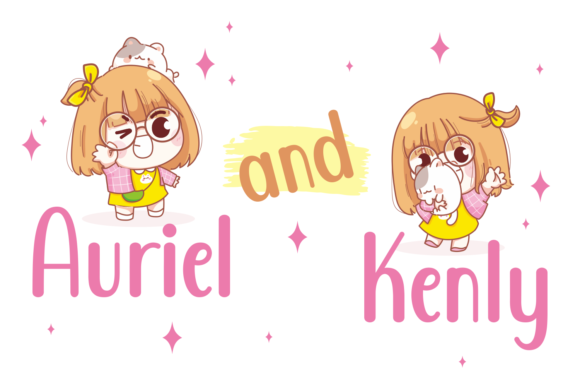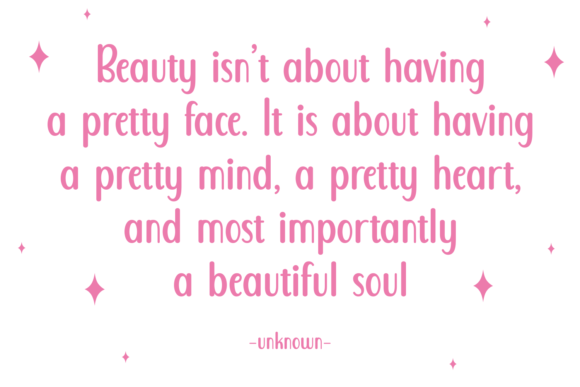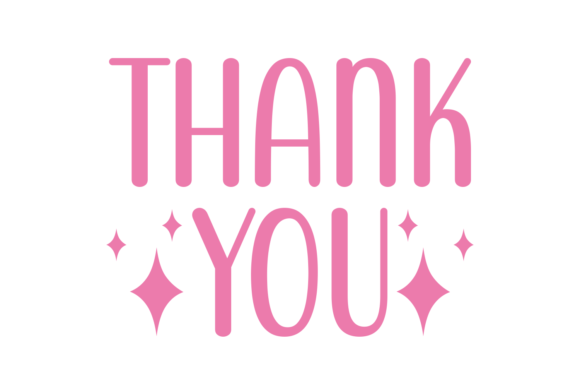
Falling in Love with Typography: The Charm of Feminim Font
You know that moment when a font just clicks? You’re working on a design project, scrolling through font libraries, and suddenly, you stumble upon a font that makes your heart skip a beat. For me, that moment happened when I discovered the Feminim Font. Its cute, tall, and friendly display style instantly made me want to create something beautiful with it.
The Feminim Font is designed to add a touch of warmth and friendliness to any design. Its simplicity belies a strong visual effect that’s sure to grab attention. Whether you’re designing a logo, a poster, or a social media graphic, the Feminim Font is the perfect addition to elevate your creation.
For designers, the Feminim Font is a valuable asset. Its versatility and charm make it an excellent choice for a wide range of projects, from branding to advertising. With the Feminim Font, you can create designs that are both visually appealing and memorable.
Feminim Font Key Features
- Font Family: Feminim is a sans-serif font family designed for modern and elegant typography. It is available in 6 font weights (100, 200, 300, 400, 500, 600, 700, 800, 900) and 2 font styles (Regular and Italic).
- Character Set: The font family includes a wide range of characters, including Latin, Cyrillic, and Greek alphabets, as well as punctuation and symbols.
- Unique Characteristics: Feminim Font is known for its clean, minimalist design and subtle rounded edges, making it perfect for body text and headings in modern designs.
Feminim Font Review
I recently had the chance to work with the Feminim font, and overall, I was quite pleased with the results. Here are some of the things that stood out to me: ✨
- Unique Character: Feminim font offers a distinct personality that can add a touch of elegance and sophistication to any design project.
- Legibility: Despite its unique appearance, Feminim font is highly legible, making it suitable for a wide range of applications.
- Customization Options: The font offers a range of customization options, allowing designers to fine-tune the look and feel to suit their specific needs.
However, I did encounter some limitations during my work with the font: ⚠️
- Restricted Character Set: The font’s character set is somewhat limited, which can make it less suitable for projects that require a wide range of special characters.
- Not Ideal for Body Text: While Feminim font is great for headlines and titles, it may not be the best choice for body text due to its relatively small x-height and wide letter spacing.
Overall, I would recommend Feminim font to designers who are looking for a unique and elegant font for their projects. While it may have some limitations, its strengths far outweigh its weaknesses, making it a solid addition to any designer’s toolkit.
Tips for Getting the Most Out of Feminim Font
Here are some tips to get the most out of Feminim Font:
- Use Feminim Font for headings and titles to add a touch of elegance.
- Pair Feminim Font with a bold font for a contrasting look.
Feminim Font is ideal for:
- Branding and logos.
- Editorial and publishing content.
Alternatives to “Feminim Font” for Designers
Playfair Display is a high-end, elegant serif font suitable for luxury brands, fashion, and high-end packaging. It features beautiful flourishes and connections between letters, making it perfect for creating a sense of sophistication and refinement.
Comparison to Feminim Font: While both fonts are elegant, Playfair Display is more luxurious and ornate, making it a better fit for high-end brands. Feminim Font, on the other hand, is more versatile and can be used in a wider range of applications.
Great Vibes is a modern, elegant script font that’s perfect for creating a sense of warmth and friendliness. It’s suitable for branding, packaging, and advertising, especially in the food, beverage, and lifestyle industries.